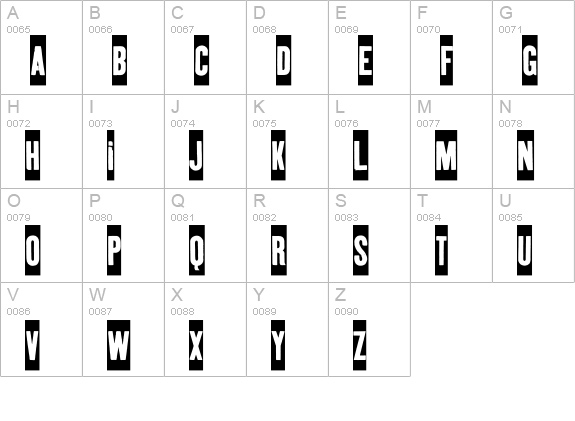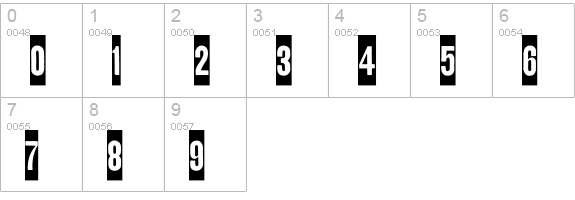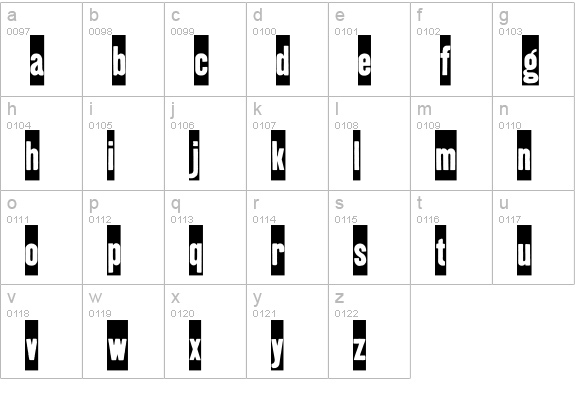
Introducing Kipp-No2, a stunning and versatile font that is sure to captivate and inspire. With its elegant and modern design, Kipp-No2 effortlessly combines sophistication with a touch of playfulness, making it the perfect choice for a wide range of creative projects. What sets Kipp-No2 apart is not only its remarkable aesthetic appeal but also its commitment to accessibility. This font is freely available to download at FontsMarket.com, ensuring that everyone can enjoy its beauty and utilize its endless creative possibilities. Whether you are a professional designer, a student, or simply someone passionate about adding a touch of elegance to your personal projects, Kipp-No2 welcomes you with open arms. Featuring a carefully crafted set of characters, Kipp-No2 brings a harmonious balance between legibility and artistic expression. Each letter flows seamlessly, allowing your words to effortlessly come to life on the page. From headlines to body text, invitations to logos, Kipp-No2 adapts effortlessly to any design application, making it an ideal choice for both print and digital media. Embrace the freedom that Kipp-No2 offers and discover a world of endless creativity. Its versatility allows you to experiment with different weights, styles, and sizes, ensuring that your designs are always unique and visually striking. Whether you are creating a bold statement or conveying a subtle message, Kipp-No2 empowers you to bring your vision to life. So, why wait? Experience the beauty and freedom of Kipp-No2 today. Download this remarkable font for free at FontsMarket.com and unlock the potential for your next design masterpiece. Join the growing community of designers who have fallen in love with Kipp-No2 and let your creativity soar to new heights.